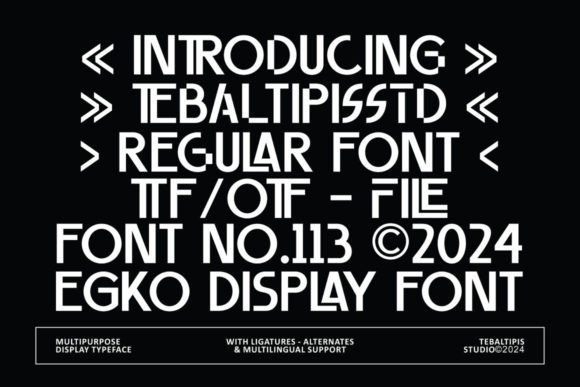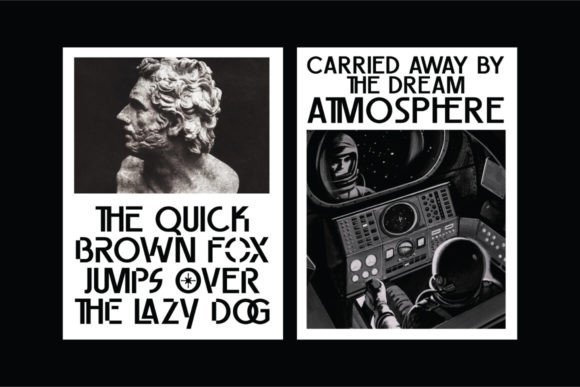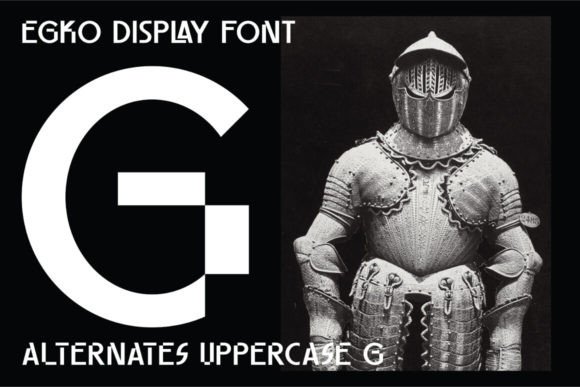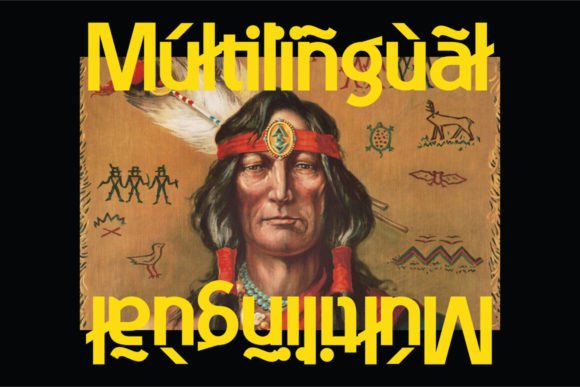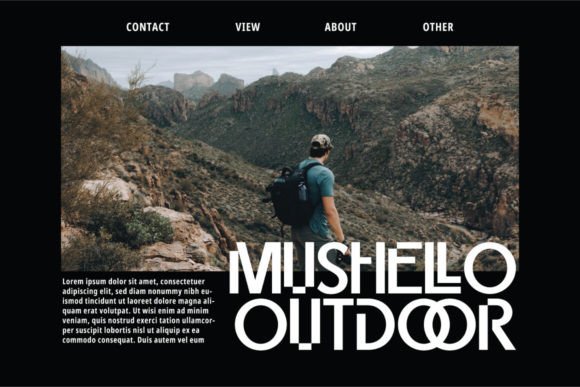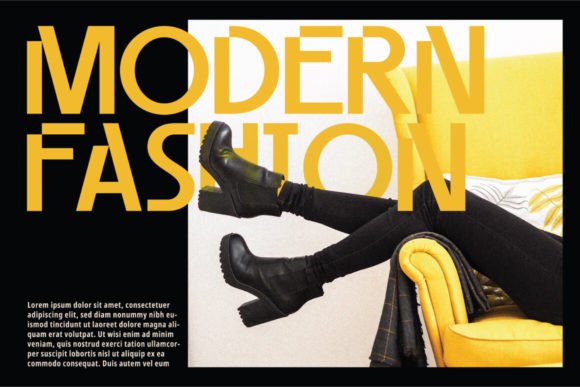
The Birth of a Bold New Design
Have you ever been working on a project, and suddenly a spark of creativity hits you? You envision a bold, eye-catching headline that sets the tone for the entire design. This is exactly what happens when designers discover the Egko Display Font.
This versatile typeface is designed to make a statement, whether it’s as a logo, badge, insignia, or packaging. Its unique personality shines through in every character, making it the perfect choice for designers looking to add some excitement to their work. With its extensive OpenType features, including Stylistic Alternates, Stylistic Sets, and Ligature, the Egko Font offers endless possibilities for creative expression.
Egko Font Key Features
- Font Family: Egko is a sans-serif font family, designed to be highly legible and versatile.
- Unique Characteristics: Egko features a unique geometric structure, with clean lines and rounded edges, giving it a modern and friendly feel.
Egko Font Review
I recently had the chance to work with the Egko Font, and I have to say, it’s been an interesting experience. Here are my thoughts on what works well and what doesn’t.
- Unique Design: The Egko Font has a distinctive look that’s sure to grab attention. Its bold lines and geometric shapes make it perfect for titles and headings.
- High-Quality: The font is well-crafted, with crisp lines and smooth curves. This makes it suitable for both print and digital use.
- Customization Options: The font comes with a range of customization options, allowing you to adjust the weight, width, and other parameters to suit your needs.
- Limited Legibility: While the font looks great on large-scale applications, it can be difficult to read at smaller sizes. This might be a problem for body text or other situations where legibility is crucial.
- Not Suitable for Body Text: Due to its bold and geometric design, the Egko Font is best used for titles and headings rather than body text.
The Egko Font is a solid choice for designers looking to add some visual interest to their projects. While it has its limitations, it’s well-suited for titles and headings, and its unique design is sure to make a statement. However, it’s not the best choice for body text or situations where legibility is critical.
Egko Font: A Practical Application Guide
Tips for Getting the Most Out of Egko Font
1. Experiment with different font sizes and colors to achieve the desired visual effect.
2. Use Egko Font in combination with other design elements to create a unique and eye-catching design.
3. Consider using Egko Font in a variety of contexts, such as headings, body text, and titles.
1. Headings and titles: Use Egko Font to create bold and eye-catching headings and titles.
2. Body text: Use Egko Font for body text to add a touch of elegance and sophistication.
3. Branding and logos: Use Egko Font to create a unique and recognizable brand identity.
Is the Egko Font optimized for accessibility, and does it meet Web Content Accessibility Guidelines (WCAG) 2.1 standards?
Yes, the Egko Font is designed with accessibility in mind. It meets the minimum requirements for legibility and readability specified in the WCAG 2.1 guidelines. The font’s design and metrics are optimized for use on various devices and screen sizes, ensuring that the